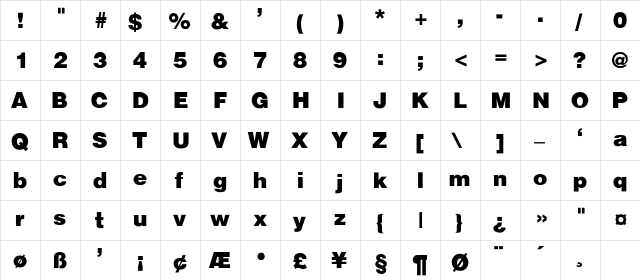
Partridge-Black-SemiBold Regular Font Preview
Partridge-Black-SemiBold Regular
Partridge-Black-SemiBold Regular Font Details
Design Context for Partridge-Black-SemiBold Typeface
Partridge-Black-SemiBold offers clean, dependable letterforms without strong stylistic allegiance, making it a practical choice for designers who need flexibility. Its bold stroke weight gives it real presence on the page.